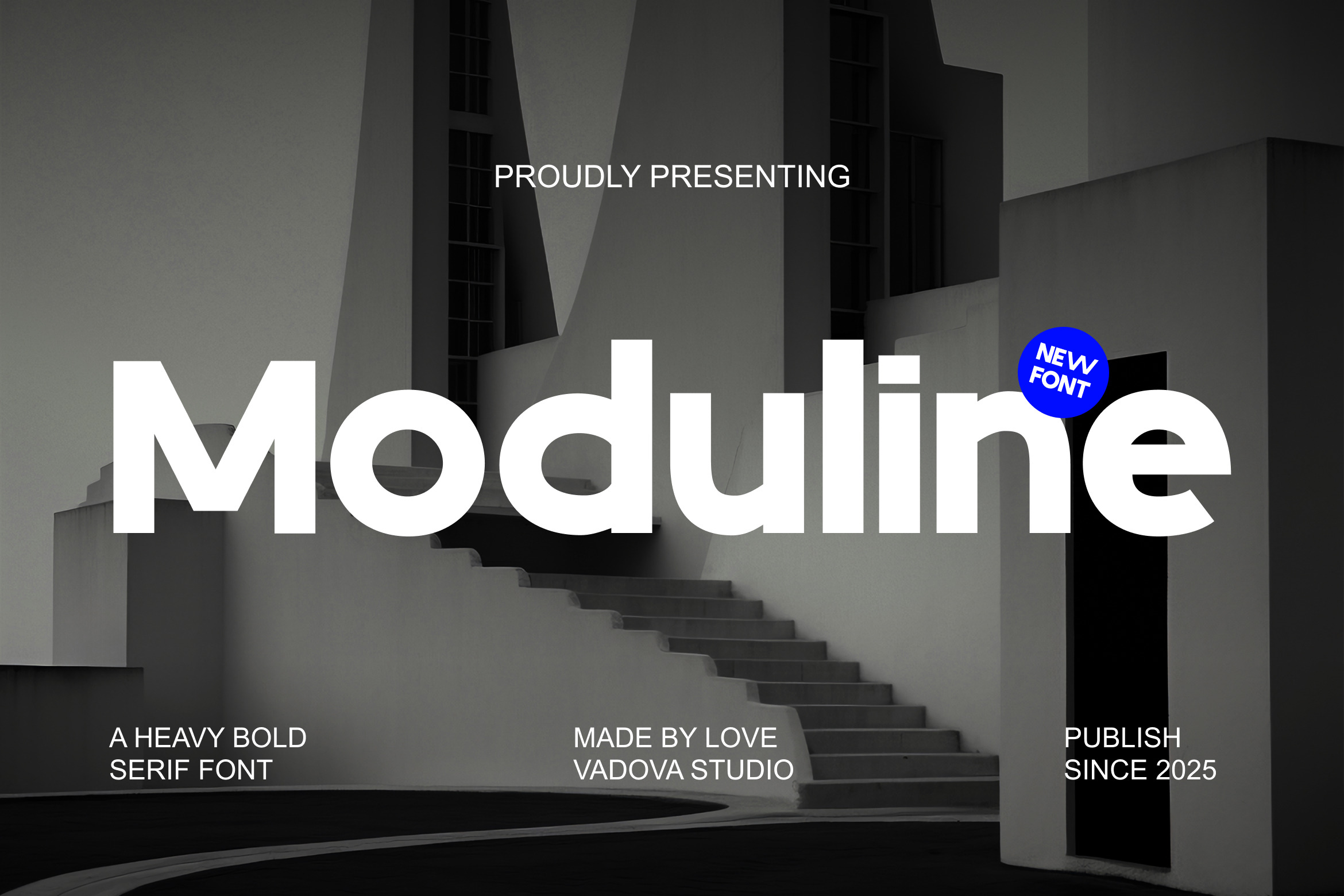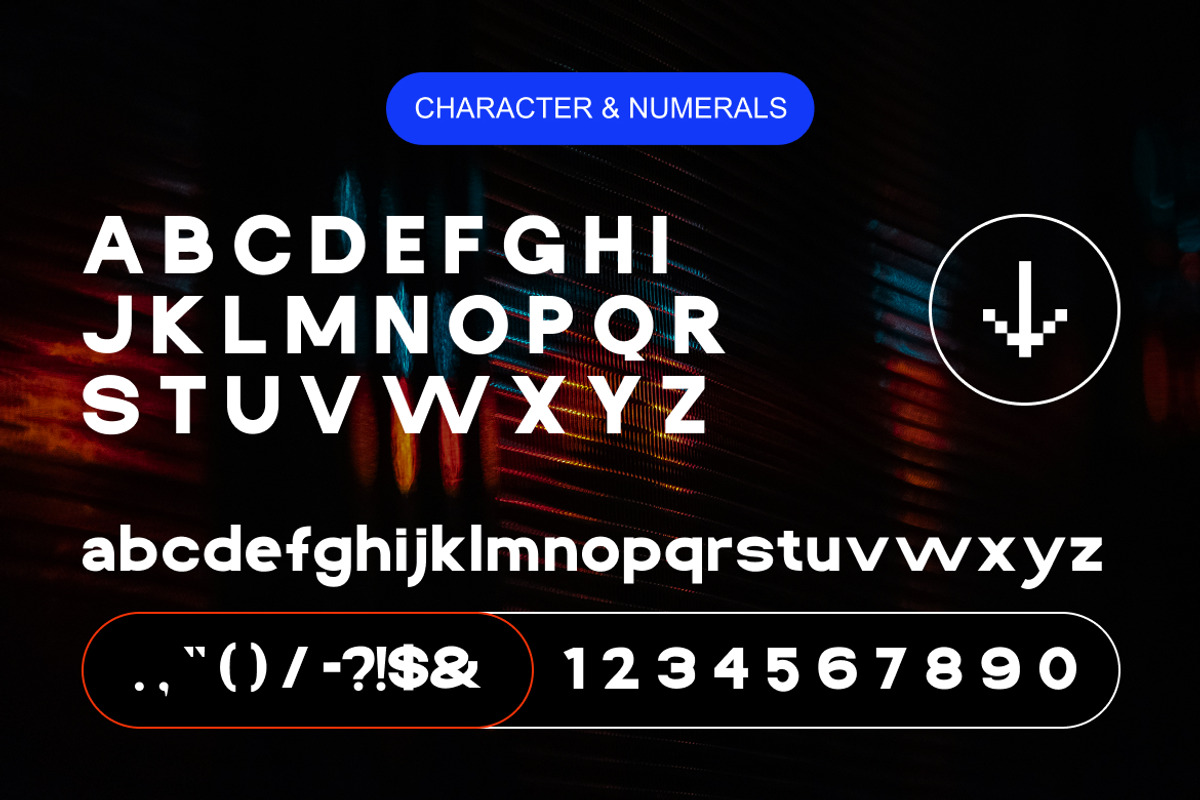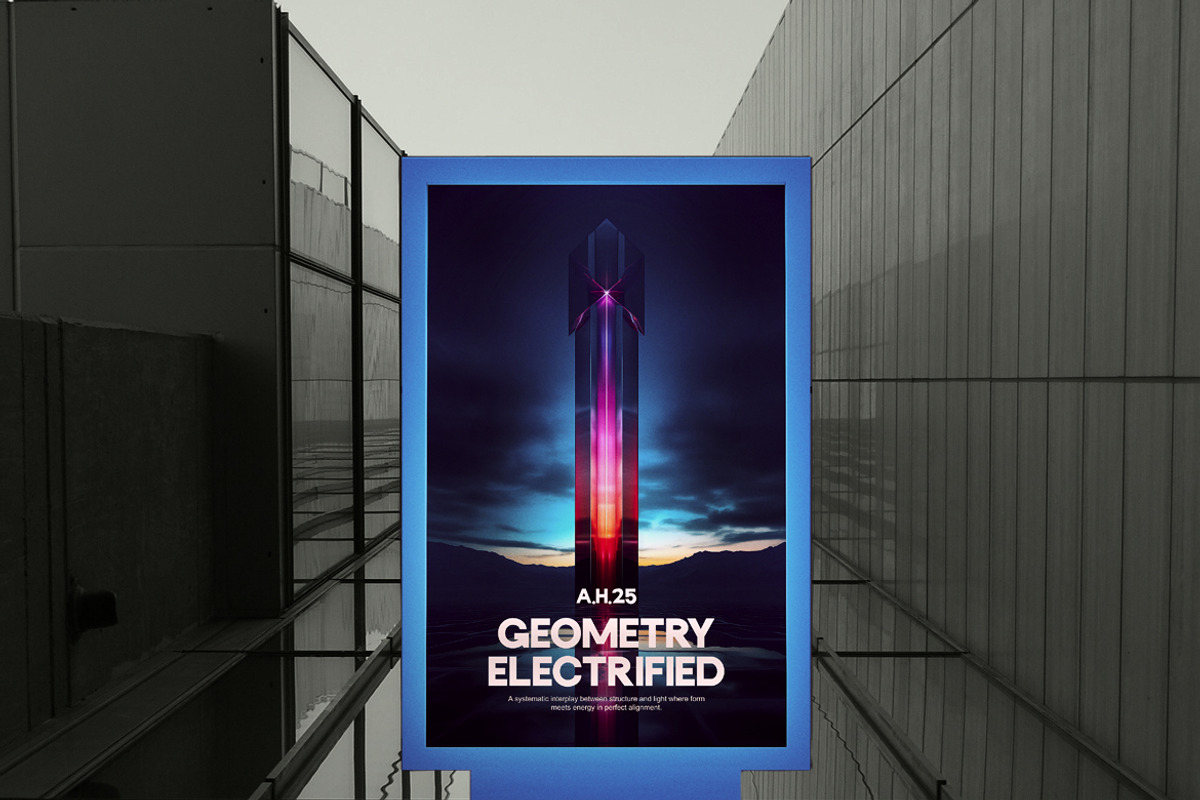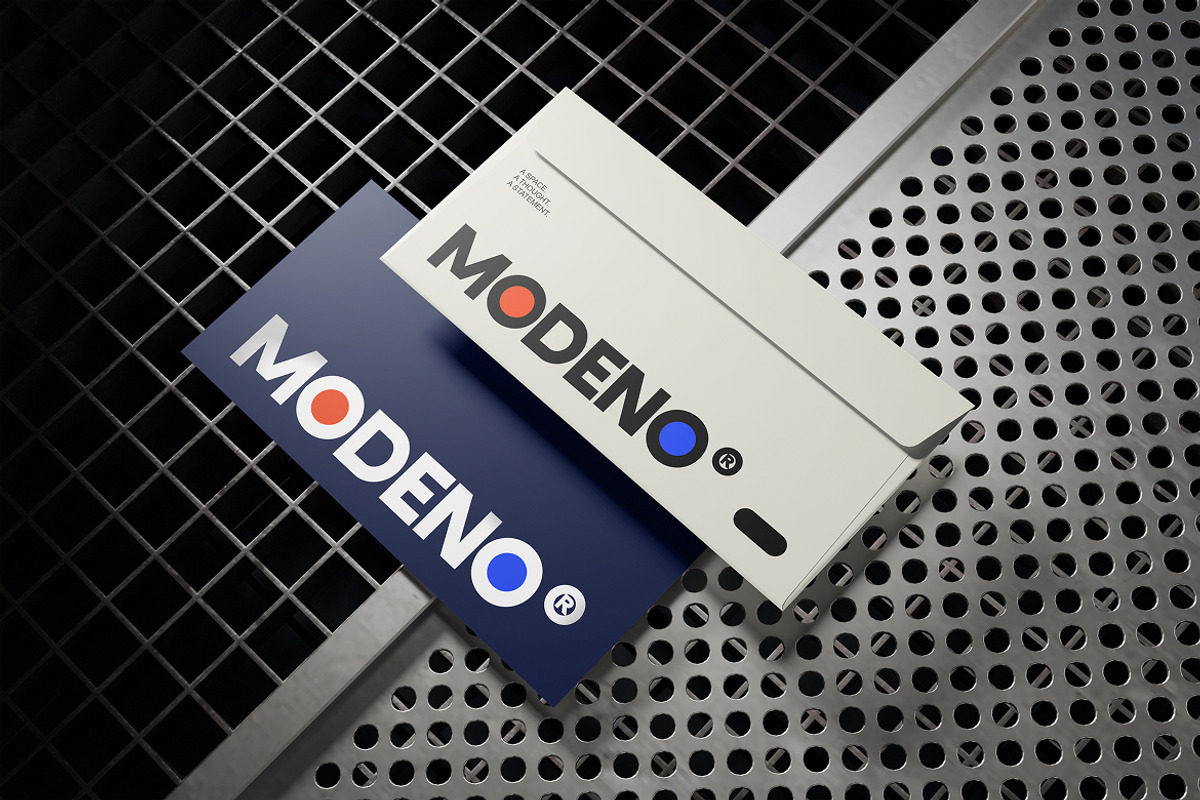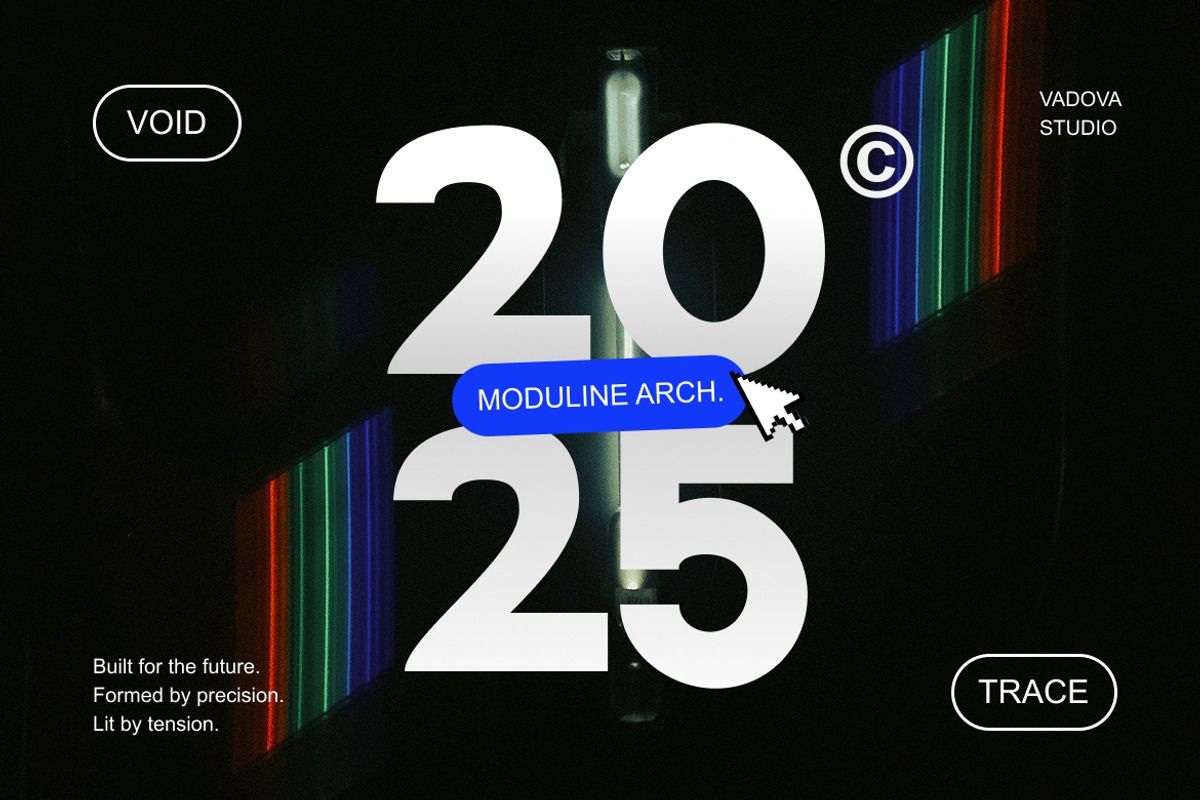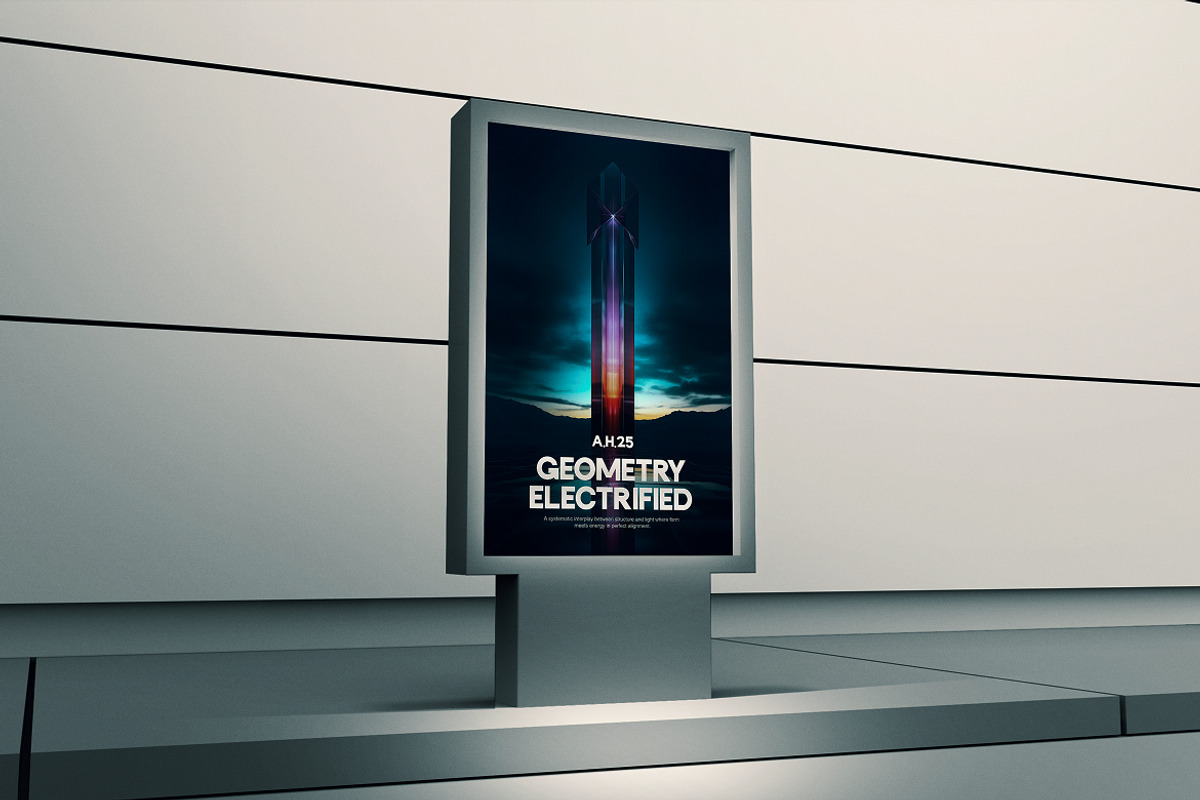
Moduline Heavy Bold Sans Serif Font
Moduline is a modern, bold sans serif font designed for impact and clarity. With its geometric shapes and high contrast lines, Moduline is ideal for high-visibility projects such as branding, headlines, posters, editorial layouts, UI design, and more. The font includes uppercase and lowercase letters, numerals, punctuation, and multilingual support. Whether used in digital or print, Moduline delivers a strong visual presence with a futuristic twist.
Moduline is perfect for creatives who want to make a bold statement. It works well in tech product branding, UI/UX headers, music and entertainment promotions, and editorial layouts. Its modern style brings confidence and a sharp edge to any visual project, both digital and print.
- Heavyweight sans serif structure with clean, modular forms
- Strong geometric foundation for visual balance and clarity
- Minimalist stroke contrast to enhance readability in bold sizes
- Smooth curves and sharp terminals for a striking contemporary feel
- Optimized letter spacing for impactful headlines and scalable design
- Modern website headers and landing pages with strong visual presence
- Editorial layouts needing clarity with a bold aesthetic edge
- Posters, album covers, and creative campaigns that demand attention
- Product packaging and labels for contemporary lifestyle goods
Make a strong statement with Moduline bold, clean, and built for impact